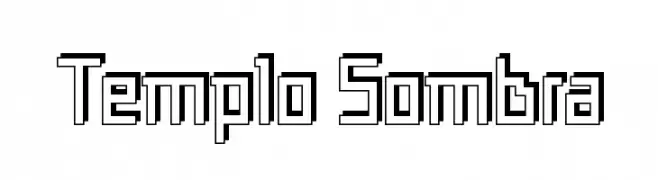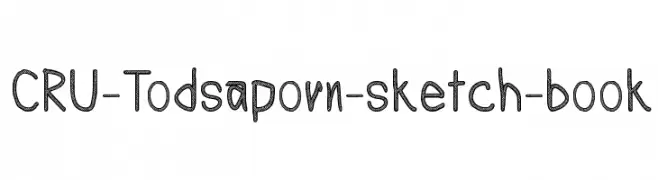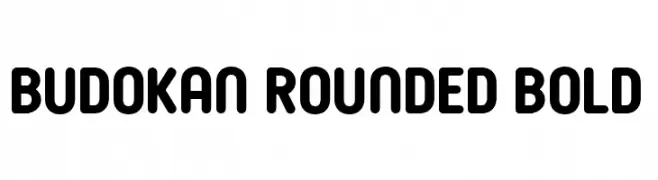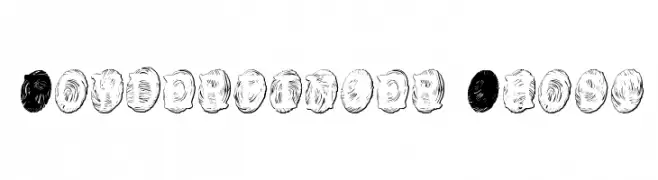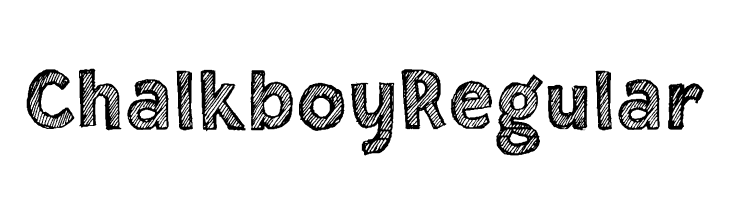
A bold, geometric font with a blocky, shadowed design.
A playful, hand-drawn font with bold, rounded characters and a whimsical style.
A bold, rounded font with smooth curves and a modern aesthetic.
A bold, distressed font with a vintage, rugged appearance.
A hand-drawn, sketch-like font with swirling, textured lines and an artistic flair.